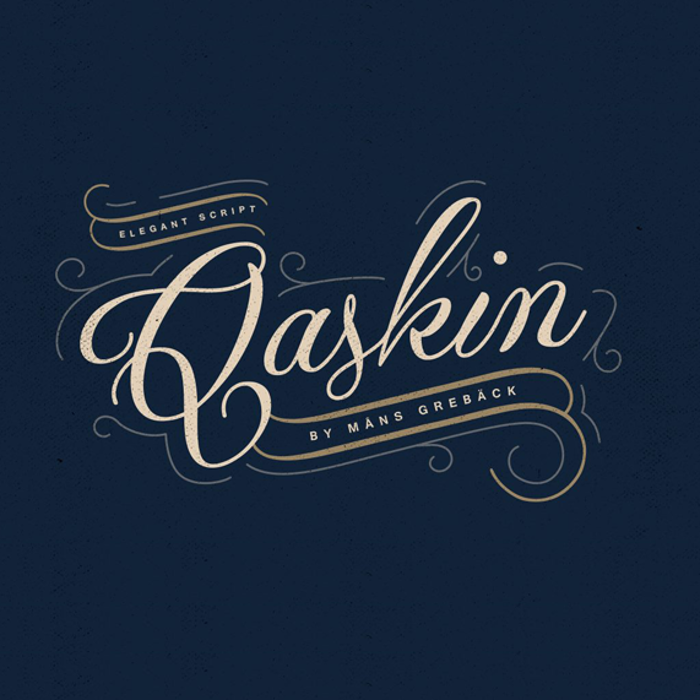
Qaskin Font
Very impressive and beautiful! Perfect script.
Beautiful and refreshingly different!
it is a very nice font, I use it in my work of interior design of my home.
It is realy elegant)
Very slick and flowin